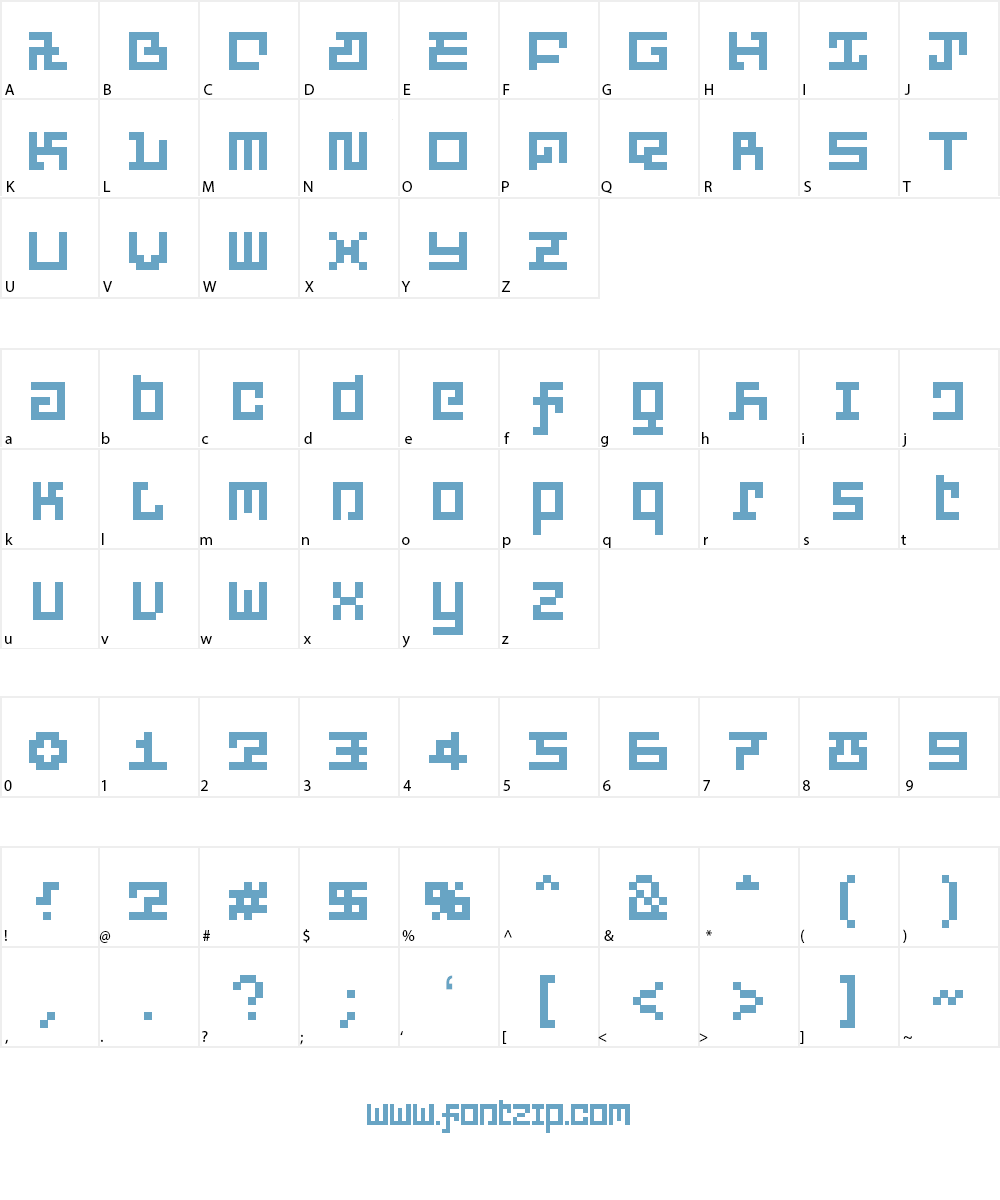
A styled bitmap font.
The capitalised letters are more styled and maze-like, whilst the lower case look more normal and fitting. It's a free font for commercial / personal use.